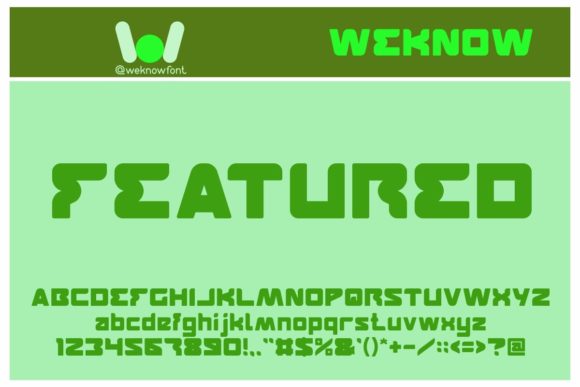
Unleash Your Creativity with Feature Font: A Cool and Techno-Looking Display Font
Are you a designer or crafter looking for a font that can elevate your designs to the next level? Look no further than Feature Font, a cool and techno-looking display font that’s perfect for creating stunning posters, flyers, and prints. In this article, we’ll explore the features and benefits of Feature Font, and show you how to make the most of its endless possibilities.
What is Feature Font?
Feature Font is a modern and sleek display font that’s designed to make a statement. Its unique blend of techno and cool elements makes it perfect for designs that require a bold and eye-catching look. Whether you’re creating a poster, flyer, or print, Feature Font is sure to grab attention and leave a lasting impression.
Key Features of Feature Font
• Unique and Modern Design: Feature Font boasts a unique and modern design that’s perfect for creating stunning designs that stand out from the crowd.
• Techno-Looking Elements: The font features techno-looking elements that give it a bold and edgy look, perfect for designs that require a bit of attitude.
• Highly Versatile: Feature Font is highly versatile and can be used for a wide range of designs, from posters and flyers to prints and more.
Benefits of Using Feature Font
So why choose Feature Font for your designs? Here are just a few benefits of using this amazing font:
• Adds a Professional Touch: Feature Font adds a professional touch to your designs, making them look polished and high-end.
• Grabs Attention: The font’s bold and eye-catching design grabs attention and draws the viewer in, making it perfect for posters, flyers, and prints.
• Endless Possibilities: With Feature Font, the possibilities are endless. Use it for a wide range of designs, from bold and edgy to sleek and modern.
How to Use Feature Font in Your Designs
Feature Font is a cool and techno-looking display font that’s perfect for designers and crafters looking to elevate their designs. With its unique and modern design, techno-looking elements, and highly versatile nature, Feature Font is sure to become a go-to font in your design arsenal. So why wait? Download Feature Font today and explore its endless possibilities!
Whether you’re creating a poster, flyer, or print, Feature Font is the perfect choice. Its bold and eye-catching design is sure to grab attention and leave a lasting impression. So go ahead, get creative, and see what amazing designs you can create with Feature Font!